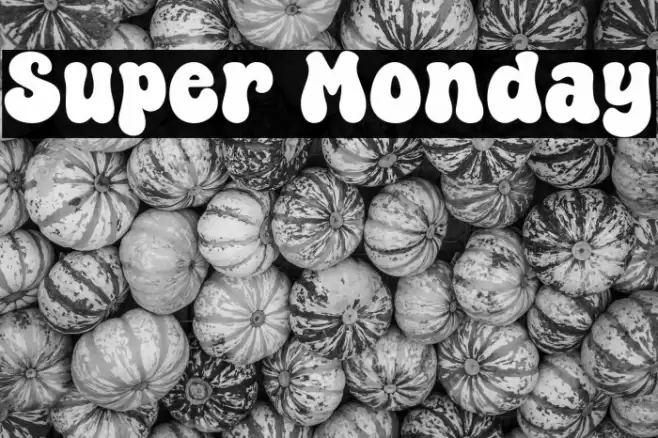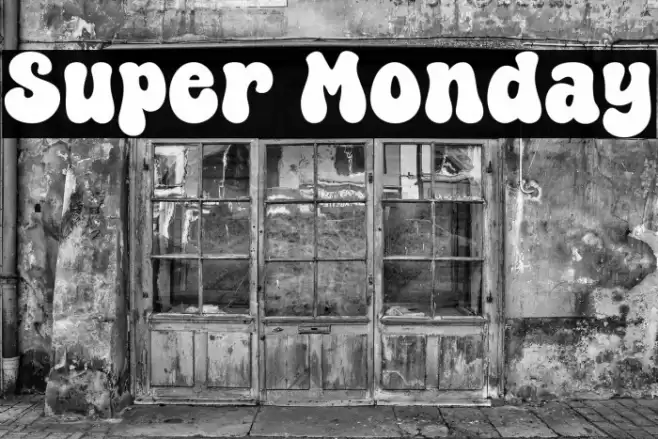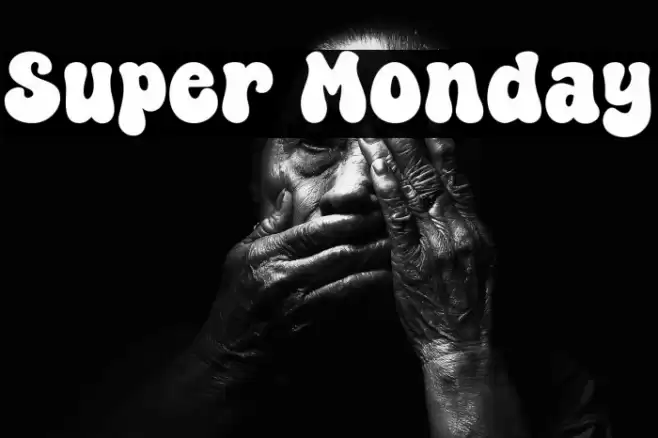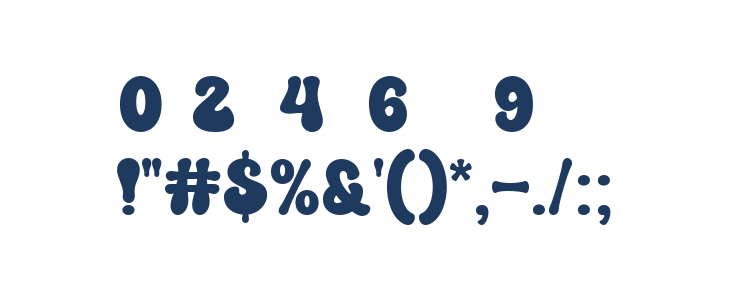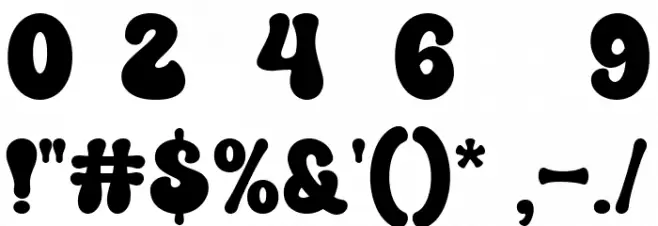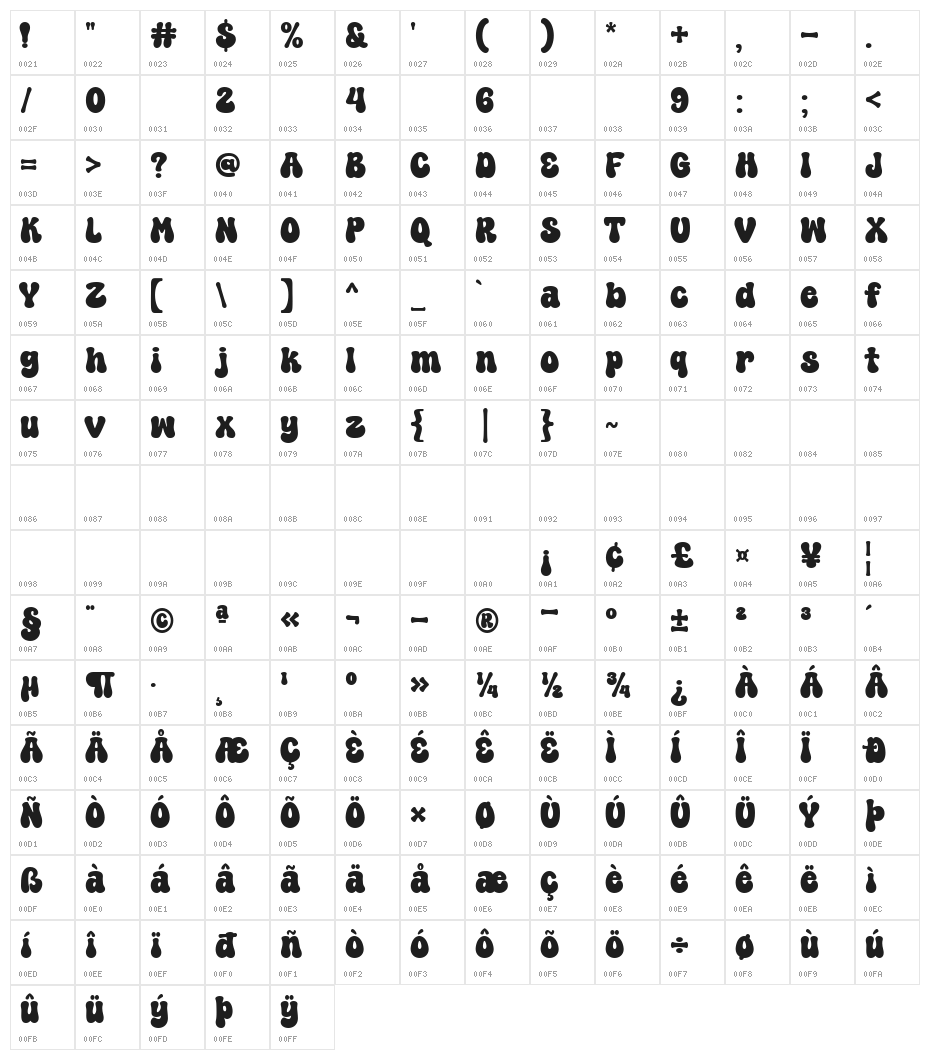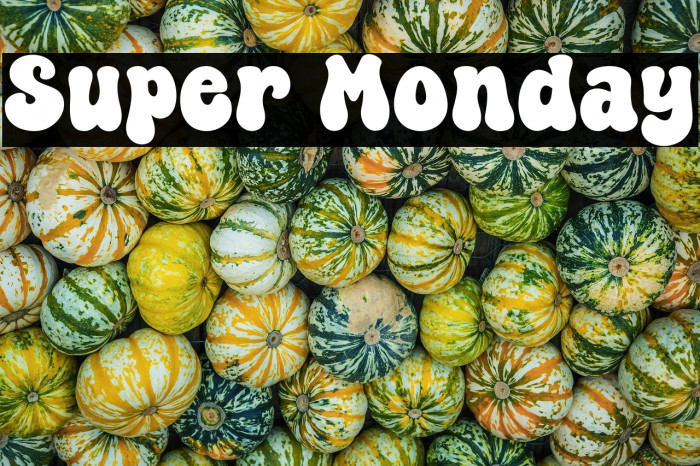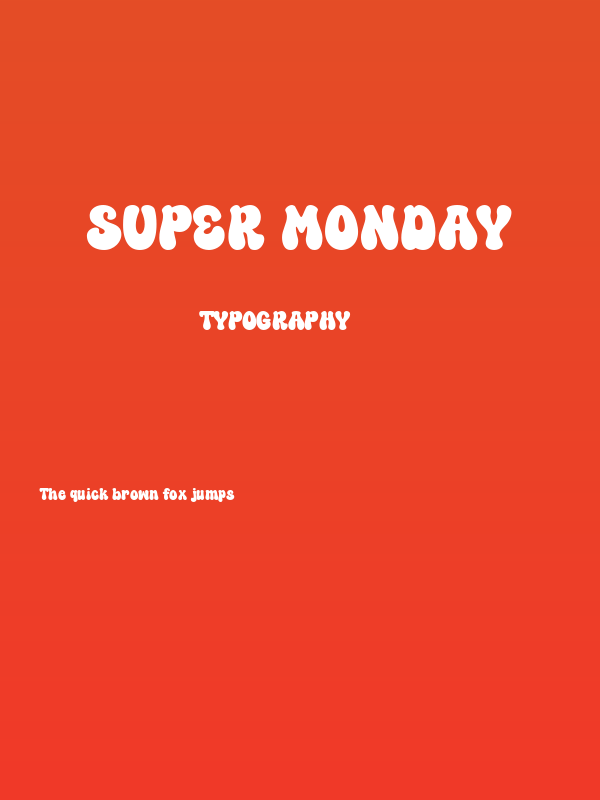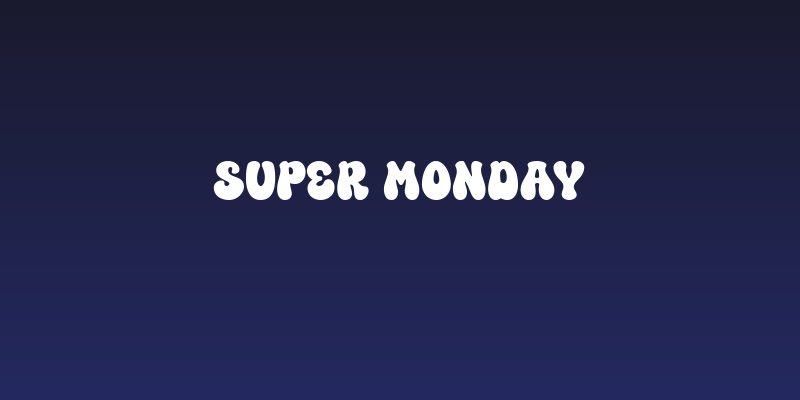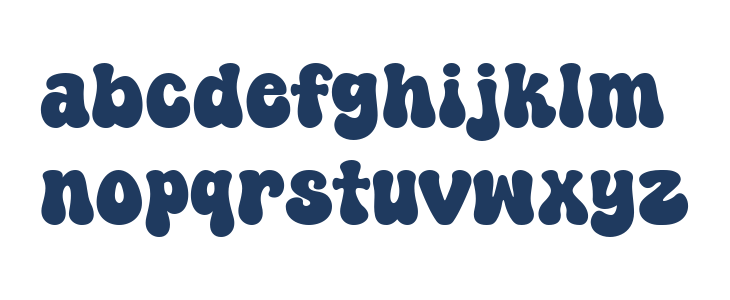
Super Monday Font
Super Monday Description
This font features a bold and playful design with thick, rounded characters that convey a sense of fun and whimsy. The letters are heavily weighted, giving them a strong presence, while the rounded edges soften the overall look, making it approachable and friendly. The font maintains consistent thickness throughout, with minimal contrast between strokes, which enhances its bold appearance. The spacing between characters is relatively tight, contributing to a compact and cohesive look. This style is reminiscent of retro or vintage designs, often seen in playful or informal contexts.
A bold, playful font with thick, rounded characters and minimal contrast from Uncategorized fonts.
- Proposed Projects: Ideal for children's books, playful branding, retro-themed posters, and event invitations.
- Character Spacing: Tight
- Overall Style: Retro, Playful
- Use Case: Logos, Posters, Headlines